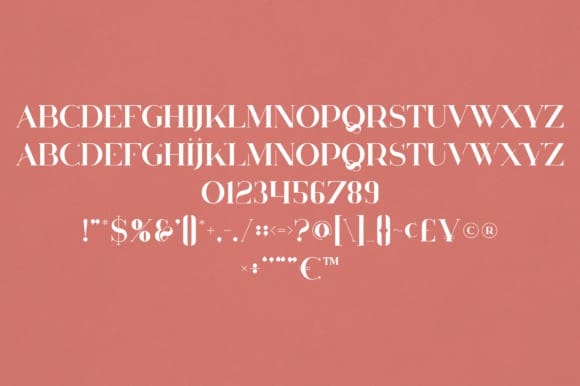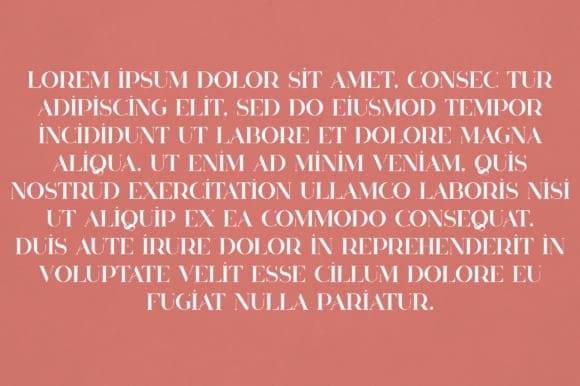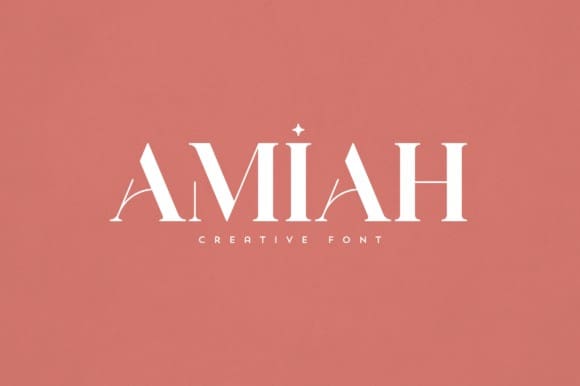
Amiah Font
Amiah Font is an elegant and versatile font that will make your typography truly unique! It will enchant every logo, branding, headline, or plain text!